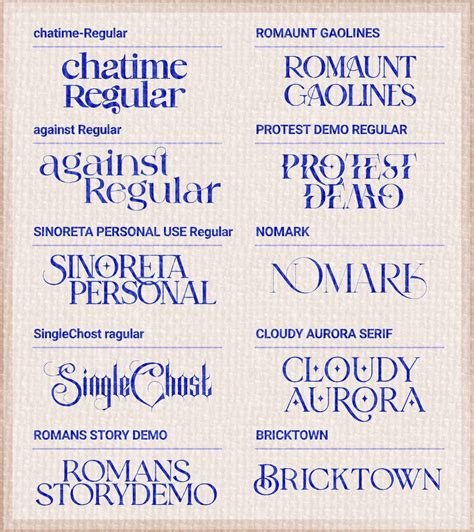
Choosing the perfect Font For Title design is a critical decision that dictates the visual hierarchy and emotional tone of your content. Whether you are designing a website, a magazine cover, or a professional presentation, the typography you select for your headlines acts as the primary hook for your audience. A bold, readable typeface can significantly improve user engagement, while a poor choice may lead to immediate bounce rates. Understanding the balance between aesthetics and utility is the foundation of effective graphic design and digital communication strategy.
The Impact of Typography on Branding
Typography is the voice of your brand. When users land on your page, the font used for the main headline is the first thing they notice, effectively communicating your brand identity before they read a single word of your body copy. Research suggests that consistent font choices increase brand recognition by a significant margin. If you want to convey authority, you might look toward high-contrast serifs, whereas modern tech companies often lean toward clean, geometric sans-serif typefaces.
Selecting the Right Style
Before diving into specific typeface families, it is essential to consider the message you intend to deliver. There are four primary categories of typography that designers utilize:
- Serif: Traditional and reliable; perfect for editorial content.
- Sans-Serif: Clean and modern; ideal for digital interfaces and minimalist branding.
- Script: Elegant and personal; best reserved for decorative use or special announcements.
- Display: High-impact; built specifically to grab attention in large sizes.
Technical Considerations for Web Headlines
When selecting a Font For Title elements for the web, technical performance is just as important as visual appeal. Large, ornate fonts can increase page load times if not properly optimized. Using web-safe fonts or lightweight web font services ensures that your site remains responsive across all devices, including mobile phones and tablets.
| Font Category | Best Use Case | Readability |
| Serif | Print/Long-form | High |
| Sans-Serif | Web/UI Design | Excellent |
| Display | Advertising/Logos | Low (Limited) |
Readability and Accessibility
Accessibility should never be an afterthought. High-contrast colors, appropriate font weights, and generous letter spacing (kerning) contribute to how accessible your text is. If your title is difficult to scan, users will lose interest. Always test your chosen typeface against different backgrounds to ensure that legibility remains intact for users with visual impairments.
💡 Note: Always ensure that your chosen font supports the necessary character sets for your target audience, especially if you need support for special symbols or non-English languages.
Best Practices for Pairing Fonts
A common mistake in design is using too many different typefaces. A clean design usually relies on a Font For Title that contrasts sharply with the body text. For instance, pairing a bold, thick sans-serif headline with a lightweight, readable serif body font creates a balanced look that is easy on the eyes. Follow these rules for professional results:
- Limit your primary document to a maximum of two or three fonts.
- Ensure the title font has a distinct personality compared to the body text.
- Use varying font weights (light, medium, bold) to create a visual hierarchy.
The journey of selecting the right typeface involves understanding both the emotional resonance of your brand and the practical requirements of your audience. By focusing on clarity, hierarchy, and consistent styling, you can transform the look of any digital project. Remember that every element of your design communicates a message, and by prioritizing intentional typography, you ensure that your titles effectively draw readers in and keep them engaged. Mastery of these design principles is essential for anyone looking to create compelling visual narratives that stand the test of time through thoughtful font selection.